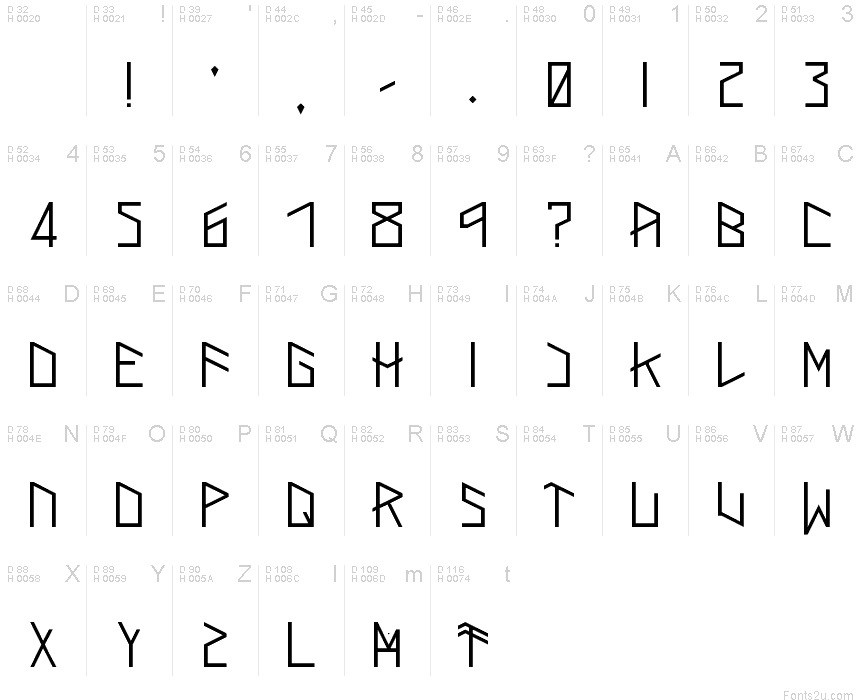
Thor's Mark Regular
This is a nordic mythology inspired font called Thor's Mark. This was created as a display font for a Typography class at DMACC in Des Moines, Iowa.